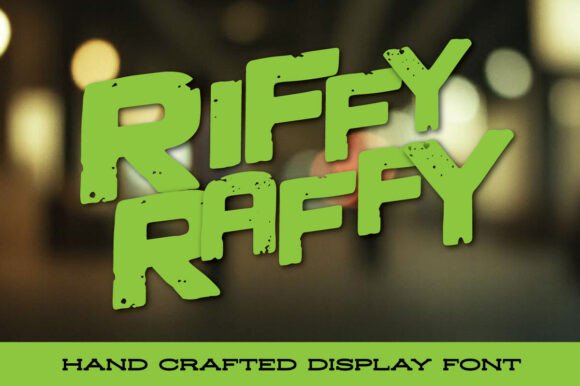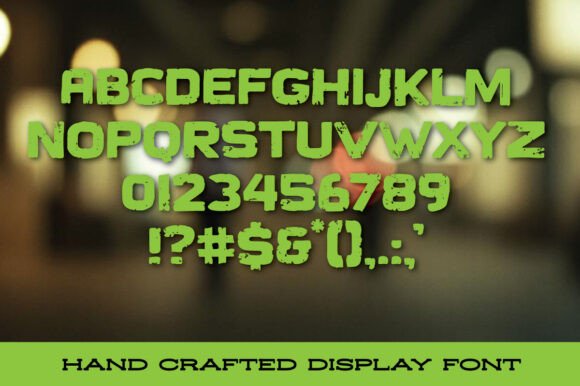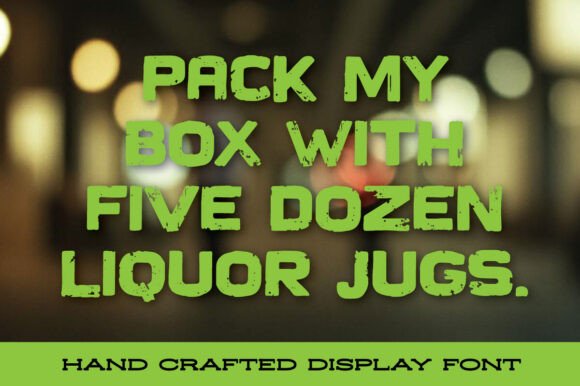
Riffy Raffy Font: A Bold Grunge Display Font for Creative Projects
About the Riffy Raffy Font
We are excited to introduce Riffy Raffy Font, a must-have typeface for any serious designer. Riffy Raffy is a bold sans-serif font with a rebellious edge. Featuring rough, distressed textures and rugged letterforms, it exudes a raw, hand-crafted feel perfect for eye-catching headlines, grunge-inspired designs, or anything that needs a touch of unpolished attitude. Its thick strokes and uneven edges give it a worn, well-loved aesthetic, making it ideal for vintage posters, rock album covers, or urban street-style branding.
Riffy Raffy excels in large-scale applications such as headlines, posters, and branding projects that demand a strong visual impact. Its texture works best in short bursts; avoid using it for body copy or lengthy text blocks. The font’s inherent roughness makes it unsuitable for UI design or applications requiring high readability.
For optimal visual harmony, pair Riffy Raffy with clean, geometric sans-serif fonts like Futura or a classic serif like Garamond. This contrast balances the font’s raw energy with a touch of sophistication. Alternatively, a playful script font can complement its rebellious spirit, while a simple, neutral sans-serif provides a solid counterpoint.
The font’s overall personality is bold, rebellious, and gritty, making it a perfect choice for brands targeting a youthful, edgy audience. Think streetwear, music festivals, or projects with a vintage or urban feel.
Riffy Raffy Font Usage Examples
Riffy Raffy Font Example